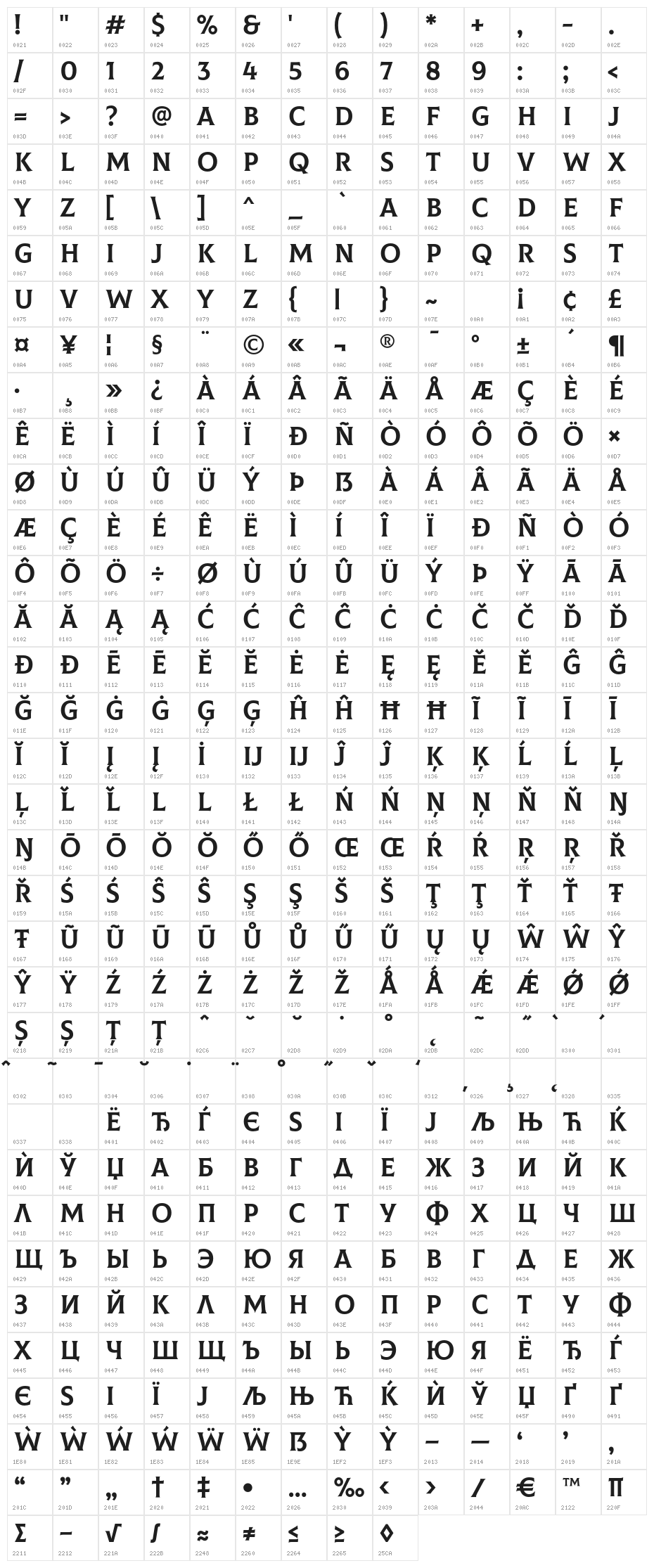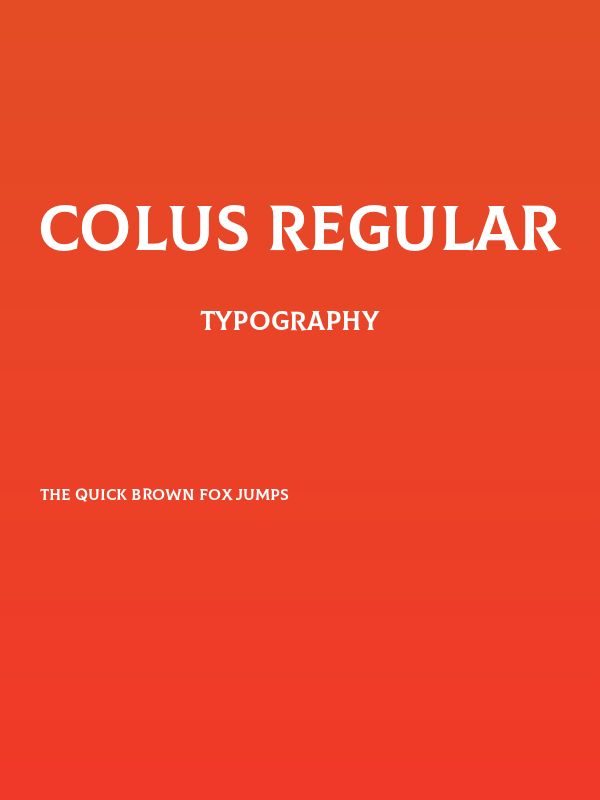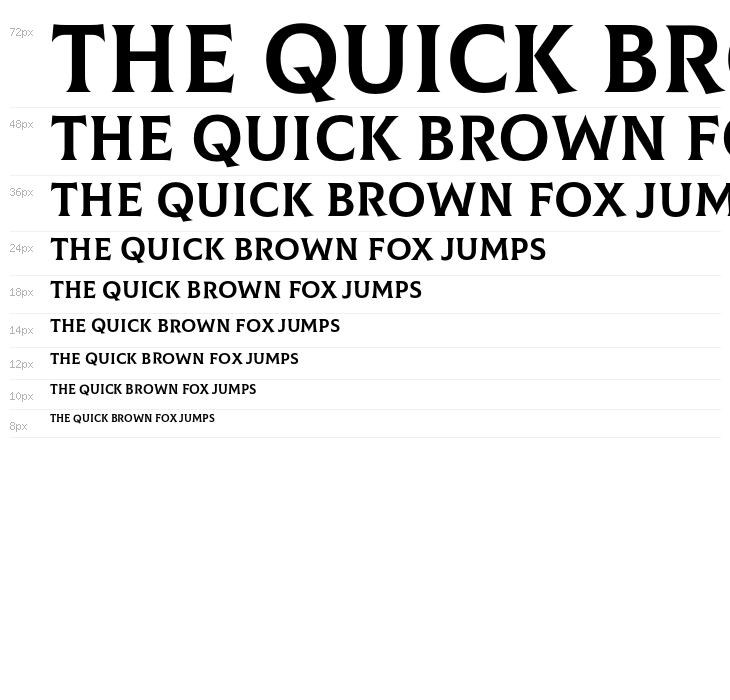
Colus Regular Font
Colus Regular Description
This font exhibits a strong and elegant serif style, characterized by its sharp, triangular serifs and a clean, modern aesthetic. The uppercase letters are bold and commanding, with a consistent stroke width that conveys a sense of stability and authority. The lowercase letters maintain a similar weight, offering a harmonious balance between the two cases. The numerals are clear and legible, designed to complement the overall style of the font. Special characters are crafted with the same attention to detail, ensuring versatility across various applications. The font's design is both timeless and contemporary, making it suitable for a wide range of uses.